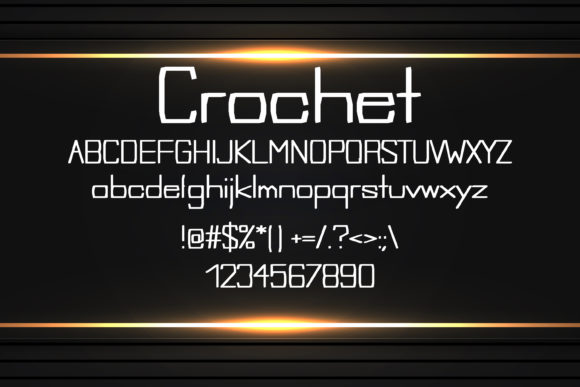
Crochet Font: The Geometric Display Font for Futuristic Designs
Crochet is a neat and unique display font that can add a touch of innovation and creativity to your designs. With its geometrically shaped letters, Crochet Font can bring your futuristic ideas to life. In this article, we’ll explore the features and benefits of Crochet Font, and how it can be used to enhance your designs.
What is Crochet Font?
Crochet Font is a display font that features geometric shapes and clean lines. Its unique design makes it perfect for futuristic and modern designs. The font is inspired by the art of crochet, where yarn is used to create intricate patterns and shapes. Similarly, Crochet Font uses geometric shapes to create a visually appealing and cohesive look.
Key Features of Crochet Font
• Geometric Shapes: Crochet Font features geometric shapes, such as triangles, squares, and circles, to create a unique and futuristic look.
• Clean Lines: The font has clean lines and a minimalist design, making it perfect for modern and sleek designs.
• Unique Letterforms: Each letter in Crochet Font has a unique design, making it stand out from traditional fonts.
• Highly Versatile: Crochet Font can be used for a variety of designs, from logos and branding to posters and social media graphics.
Benefits of Using Crochet Font
Crochet Font offers several benefits for designers and crafters. Here are a few:
• Adds Visual Interest: Crochet Font can add visual interest to your designs, making them more engaging and attention-grabbing.
• Perfect for Futuristic Designs: The font’s geometric shapes and clean lines make it perfect for futuristic and modern designs.
• Easy to Read: Despite its unique design, Crochet Font is easy to read, making it perfect for body text and headings.
• Customizable: Crochet Font can be customized to fit your design needs, from changing the color to adjusting the font size.
How to Use Crochet Font in Your Designs
Crochet Font can be used in a variety of designs, from digital graphics to print materials. Here are a few ideas:
• Logos and Branding: Use Crochet Font to create a unique and memorable logo for your brand.
• Posters and Flyers: Add Crochet Font to your posters and flyers to make them stand out and grab attention.
• Social Media Graphics: Use Crochet Font to create eye-catching social media graphics that will engage your audience.
• Web Design: Crochet Font can be used in web design to add a touch of innovation and creativity to your website.
Crochet Font for Crafters
Crochet Font is not just for designers; it’s also perfect for crafters who love to crochet. Here are a few ways crafters can use Crochet Font:
• Pattern Headers: Use Crochet Font to add a touch of personality to your crochet patterns.
• Project Labels: Create custom labels for your crochet projects using Crochet Font.
• Blog Posts: Add Crochet Font to your blog posts to make them more visually appealing and engaging.
Crochet Font is a unique and versatile display font that can add a touch of innovation and creativity to your designs. With its geometric shapes and clean lines, it’s perfect for futuristic and modern designs. Whether you’re a designer or a crafter, Crochet Font is a great addition to your font collection.